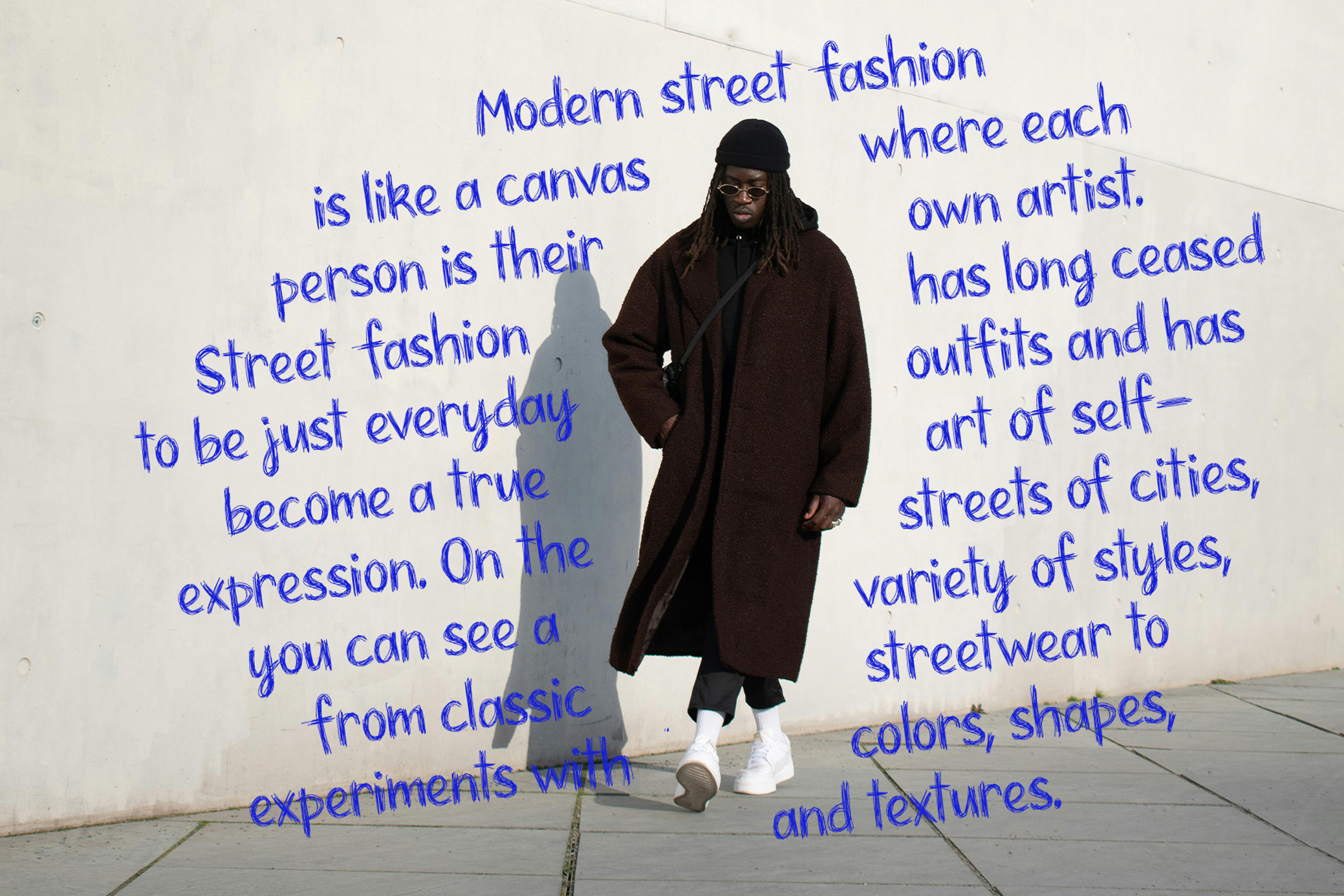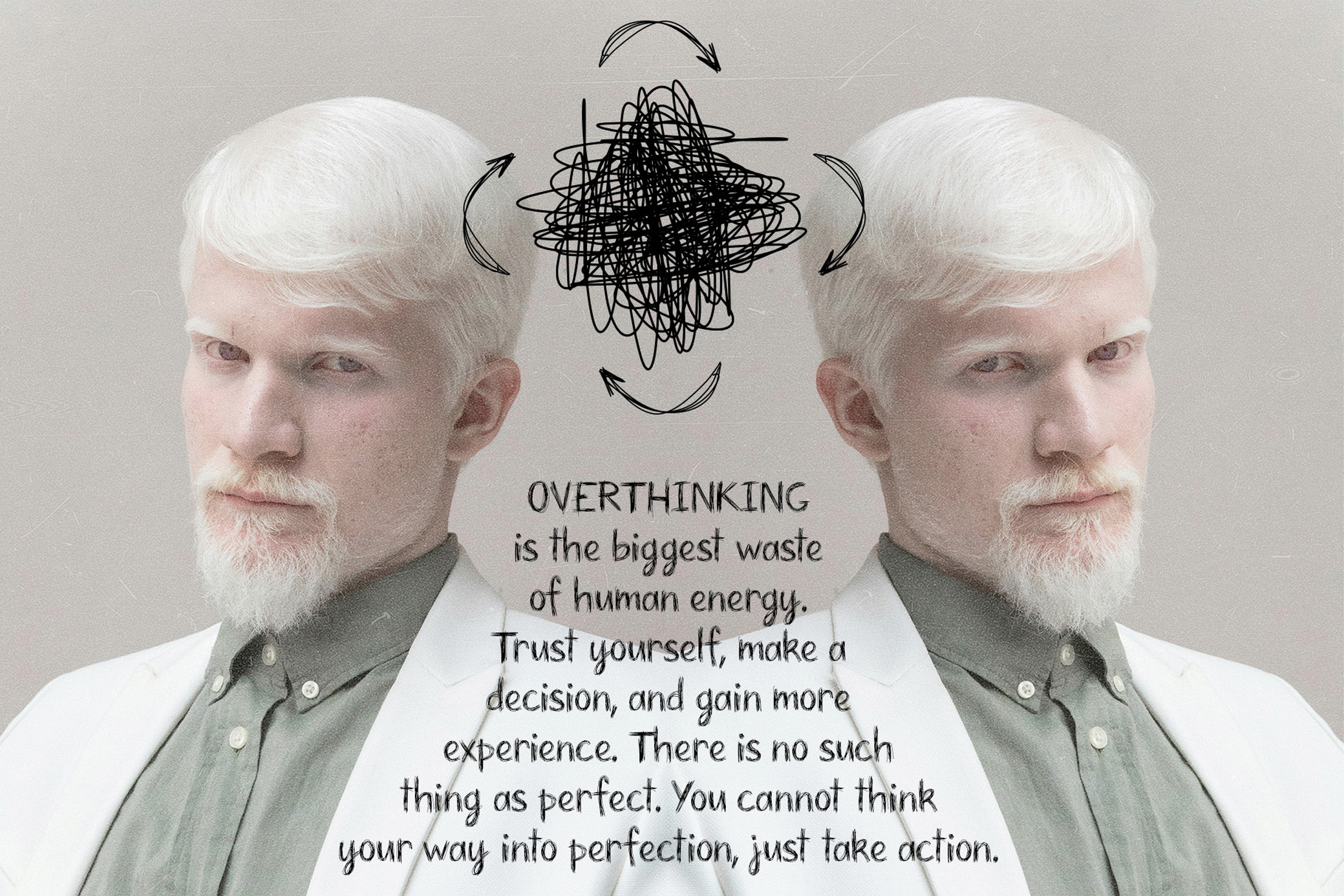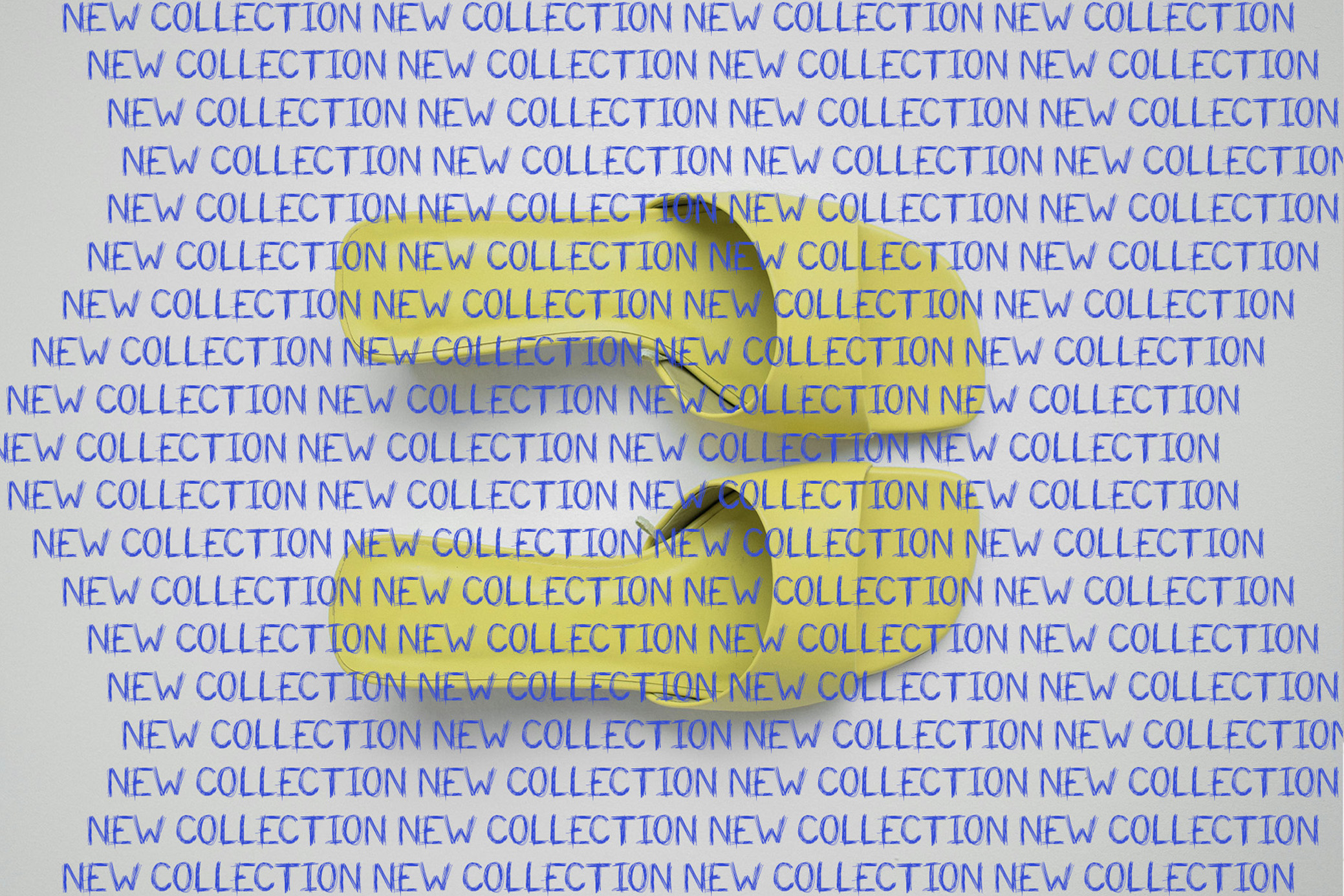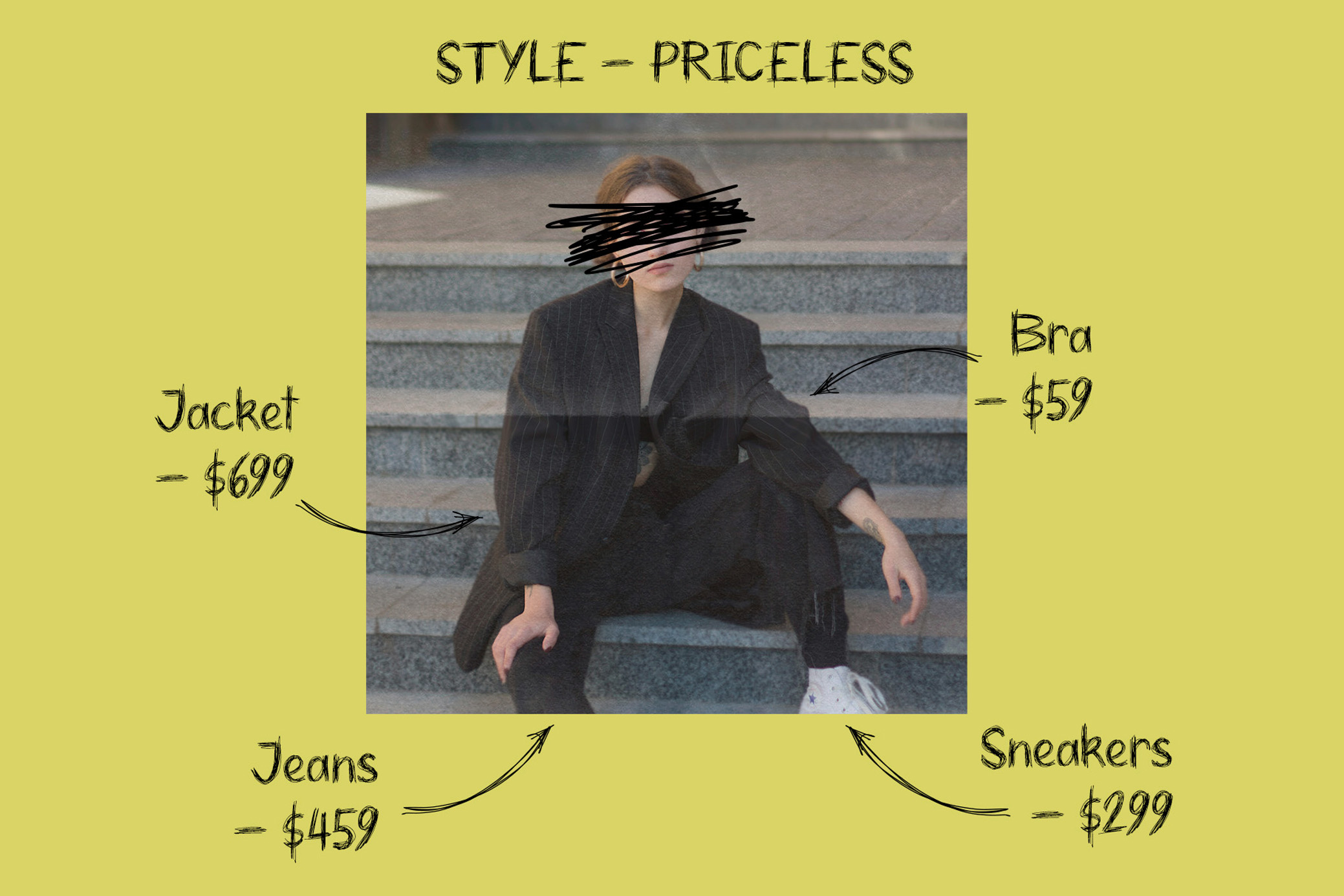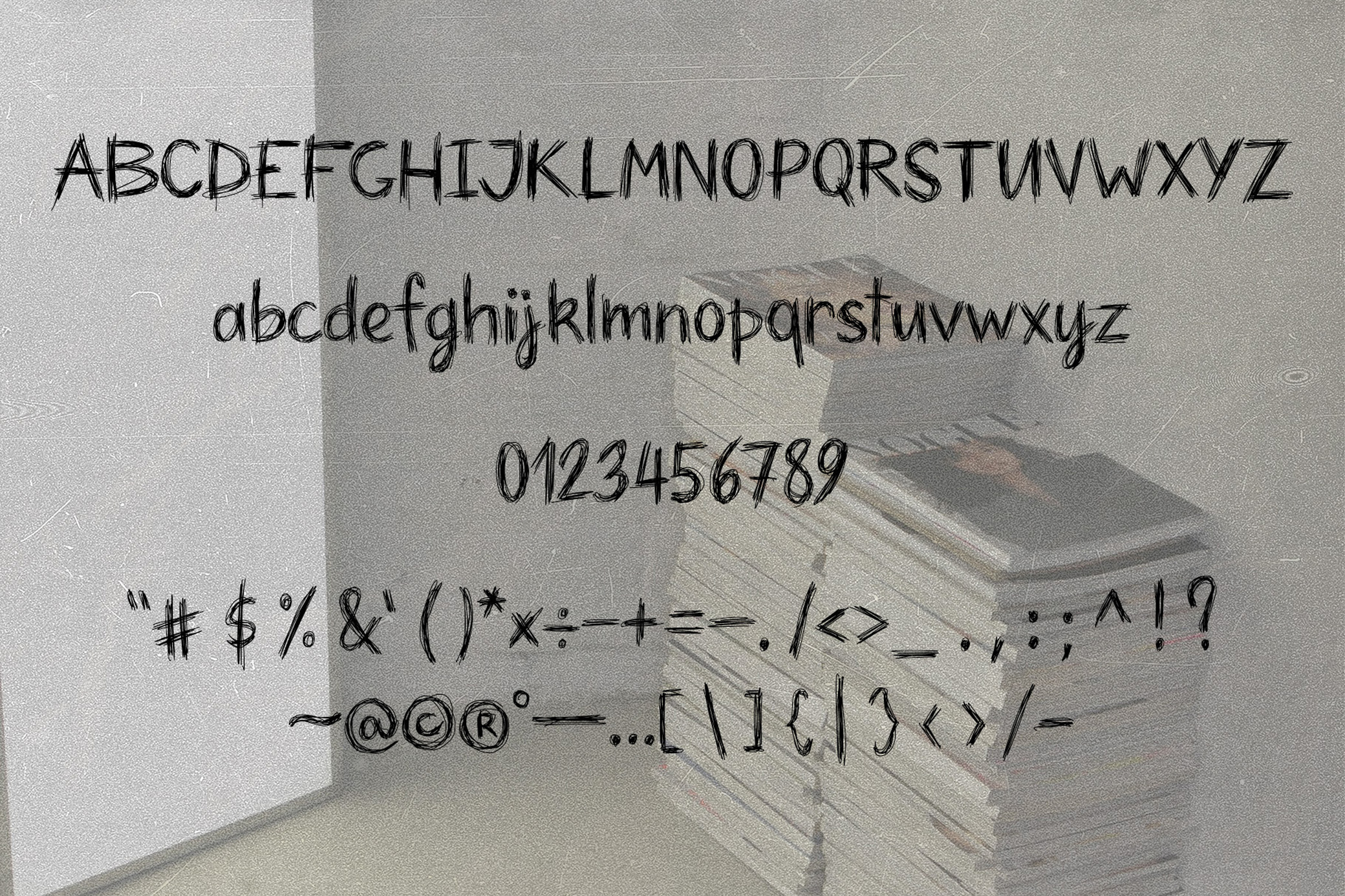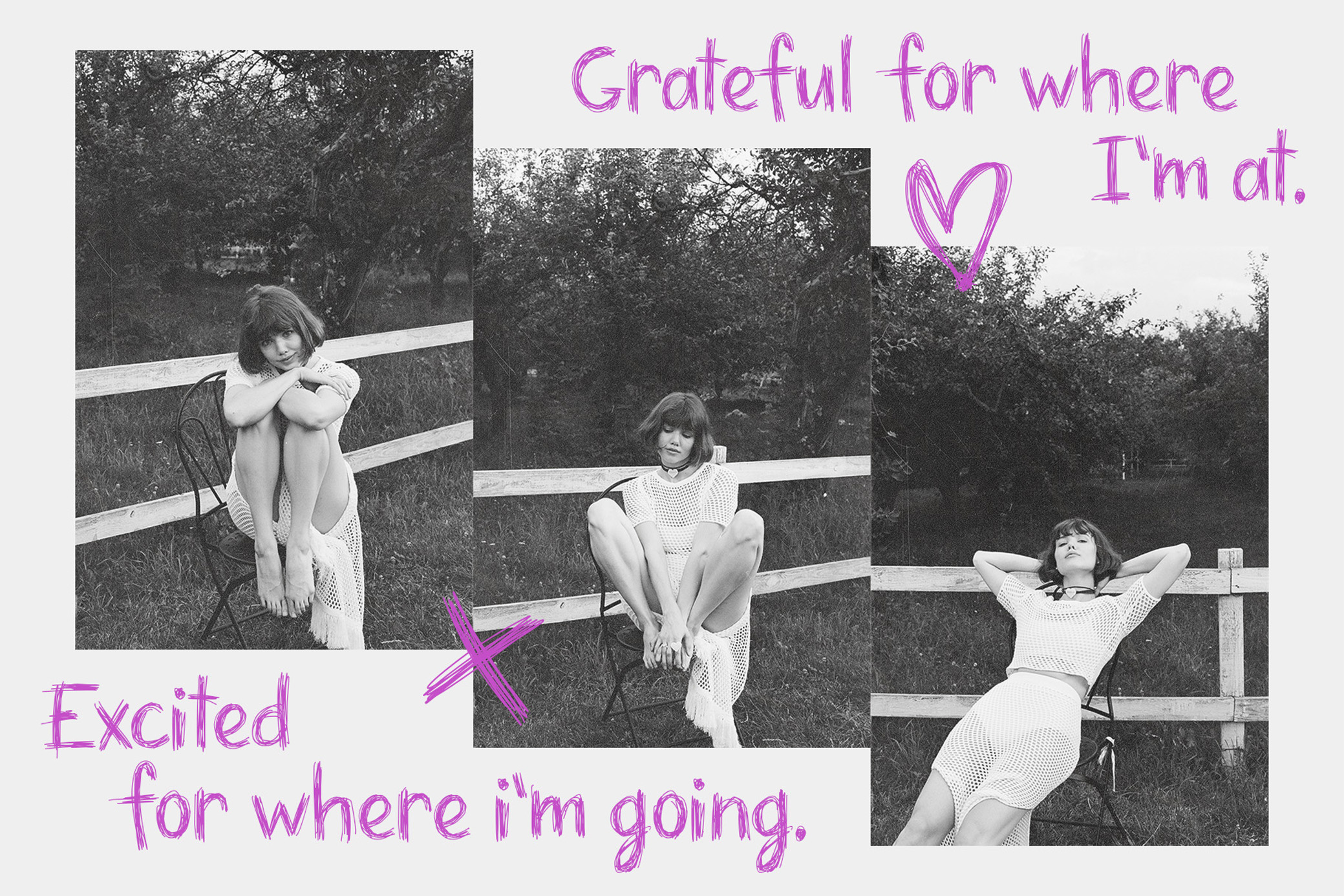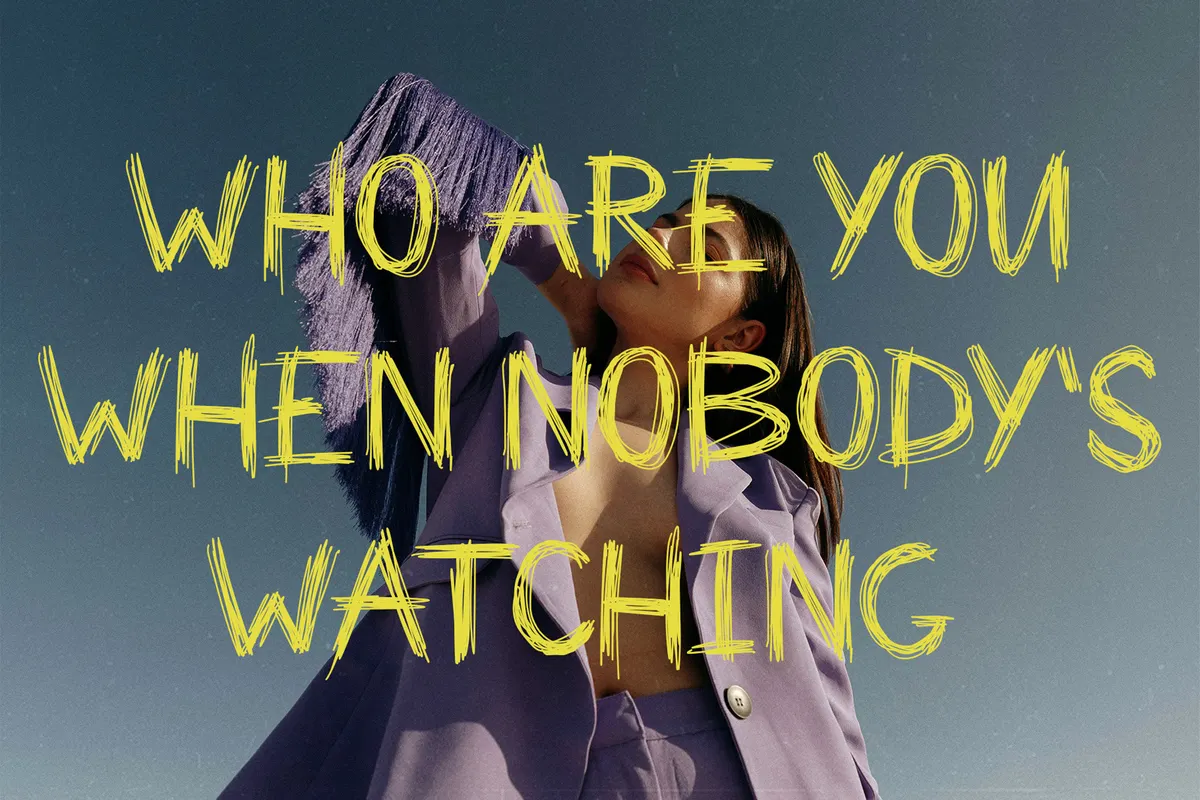
FEISTY — Scribble Handwriting Font
Imagine a solitary guy, a bit of a fashionista, art in motion, blending the unblendable. His solitude is his strength, and his style is a legend. Now, think of him as a font.
FIESTY has made the impossible: it's absorbed human nature and turned it into scribbles, quick letters made with a fine liner or an ink pen. Its letters feel like a quick note on a card next to a lipstick smudge. Surprisingly, you can compose any message with it, from a romantic note to a colleague's phone number or brand's name, as there's everything you'll need for that. FIESTY includes uppercases, lowercases, punctuation, and numbers. Plus, there's a set of 40 doodles: hearts, arrows, and random scratches.